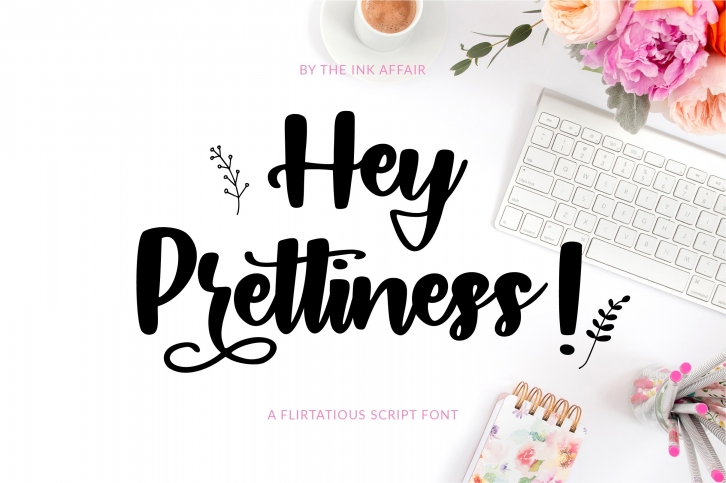
Hey Prettiness! & Bonus Vectors is a great font that was designed by theinkaffair. Imagine the amount of combinations you can create using this font! The archive is 19.52 MB and it was released on September 18, 2018. Hey Prettiness! & Bonus Vectors looks beautiful on wedding invitations, greeting cards, logos, posters, labels, t-shirt designs, logos, business cards and is perfect for use in ink or watercolor works, fashion, magazines, packaging and food menus, children's books and more!